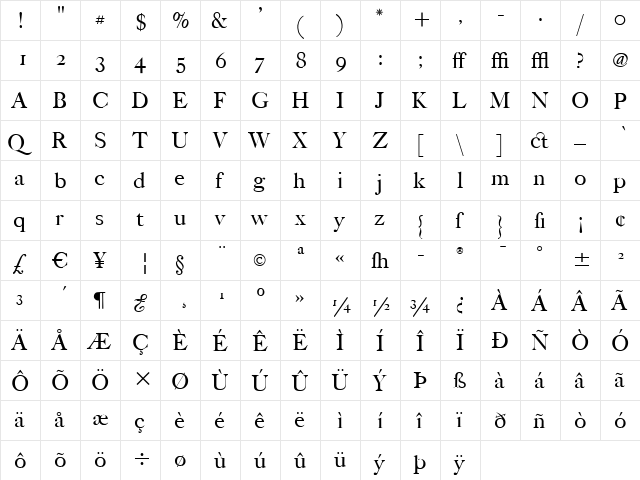
FCaslon Poster ITC Regular
Design Context for FCaslon Poster ITC Typeface
FCaslon Poster ITC is a composed and adaptable typeface that performs quietly and consistently across a wide range of design contexts.